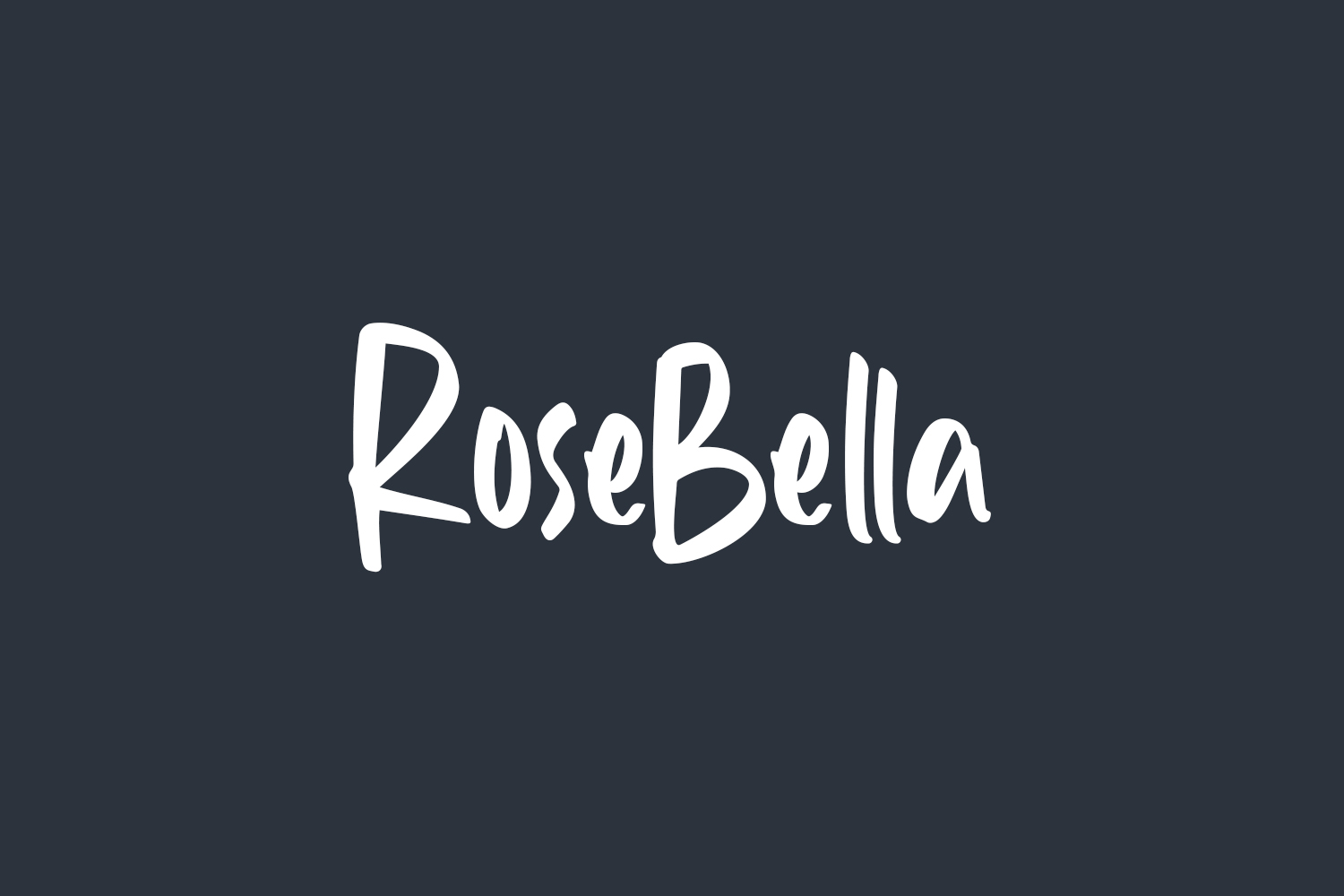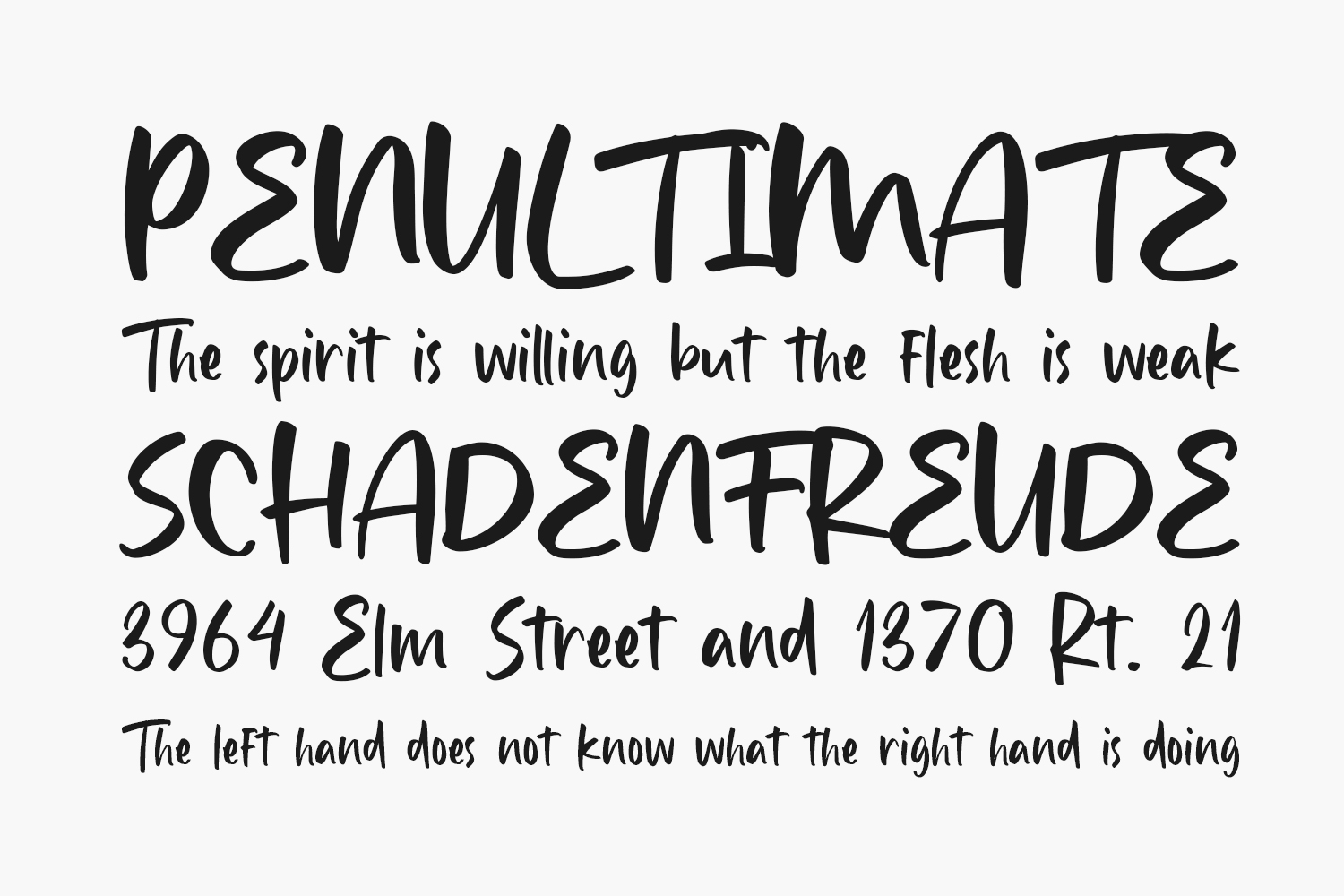
RoseBella Free Font Family is a sweet, all round and flexible handwritten font. Warm, romantic, and jolly, this font will turn each of your project ideas into real works of art. Have fun with this beautiful font and explore its endless variations. RoseBella Free Font Family was designed by Typetemp Studio and is free for personal use only. Please purchase the full version for commercial use.
RoseBella Regular The quick brown fox jumps over the lazy dog
RoseBella Outline The quick brown fox jumps over the lazy dog